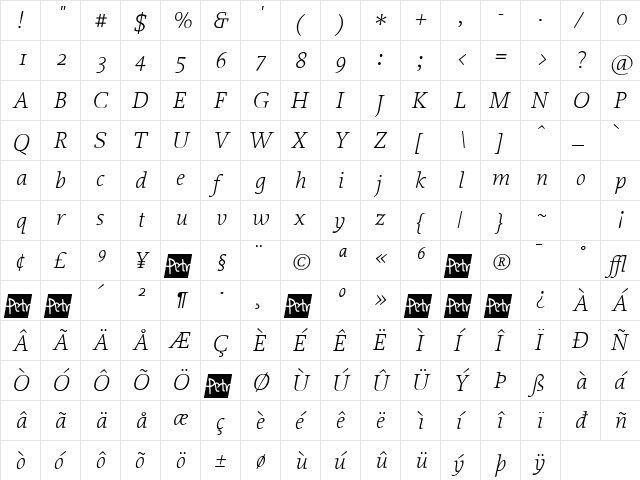
Proforma LightItalic
Design Context for Proforma Typeface
Proforma takes a measured approach to typography — its balanced proportions and neutral character make it a reliable workhorse for both digital and print work. The dynamic lean of this cut emphasises speed and emphasis in any layout. The delicate stroke weight brings airiness and refinement to layouts.
Pro Tip: Use Proforma for emphasis, pull quotes, and subheadings where its slanted energy can add rhythm to the layout.